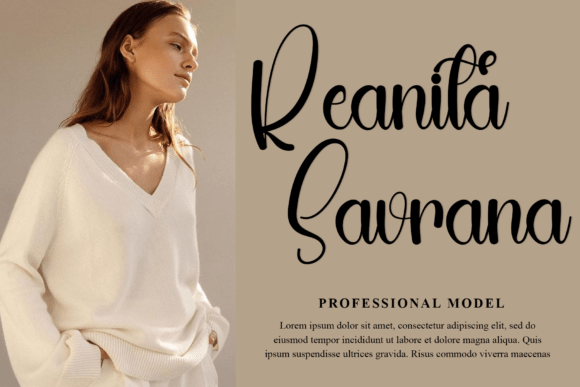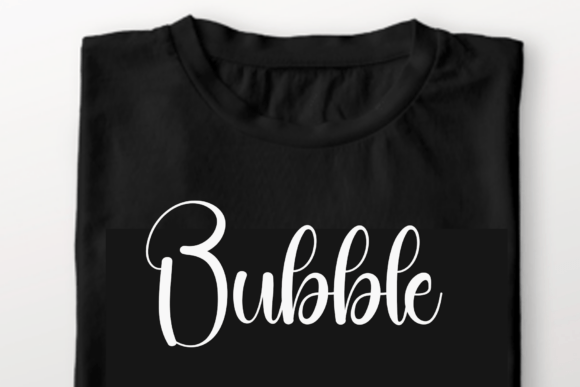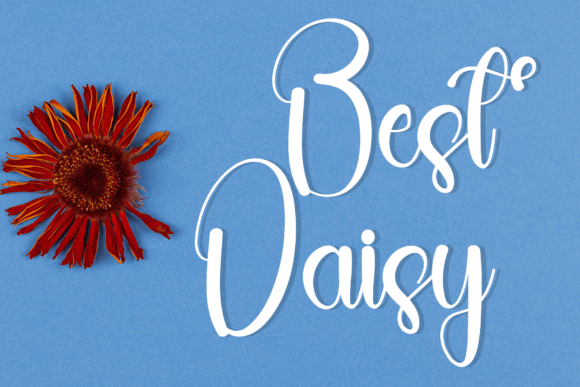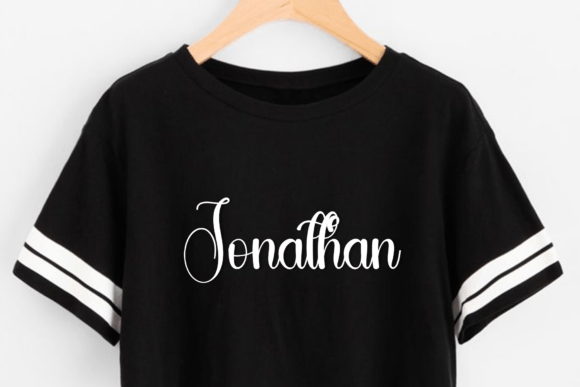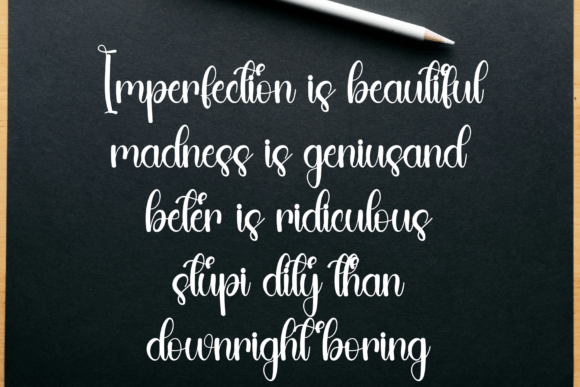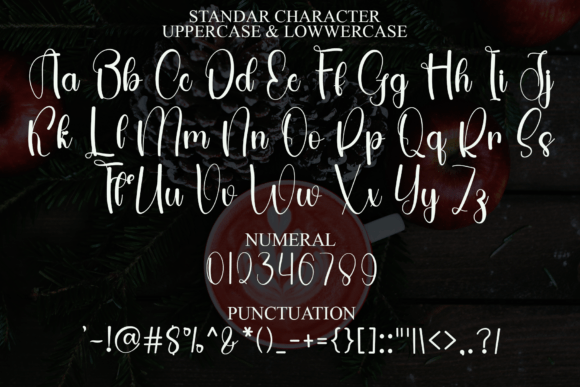
Introducing Daily Calm Font: The Festive Typeface for Holiday Cheer
Are you looking for a font that embodies the spirit of the holiday season? Look no further than Daily Calm Font, a festive and merry typeface that’s perfect for adding a touch of enchantment to your designs. With its decorative elements and whimsical flair, this font is sure to bring a cheerful and nostalgic ambiance to your words.
A Festive Font for Holiday-Themed Projects
Daily Calm Font is specifically designed to capture the magic of the holiday season. Its decorative elements and whimsical flair make it perfect for a variety of holiday-themed projects, including greeting cards, gift tags, and festive posters. Whether you’re a designer, crafter, or DIY enthusiast, this font is sure to add a touch of holiday cheer to your creations.
Key Features of Daily Calm Font
- Festive and Merry: Daily Calm Font is designed to capture the spirit of the holiday season, with a festive and merry tone that’s perfect for holiday-themed projects.
- Decorative Elements: This font features decorative elements that add a touch of enchantment to your designs, making them perfect for greeting cards, gift tags, and other holiday-themed projects.
- Whimsical Flair: Daily Calm Font has a whimsical flair that adds a playful touch to your designs, making them perfect for crafters and DIY enthusiasts.
Daily Calm Font is perfect for designers and crafters who want to add a touch of holiday cheer to their creations. Whether you’re creating greeting cards, gift tags, or festive posters, this font is sure to bring a cheerful and nostalgic ambiance to your words. With its decorative elements and whimsical flair, Daily Calm Font is the perfect choice for anyone looking to add a touch of magic to their designs.
Tips for Using Daily Calm Font
- Pair with Other Fonts: Daily Calm Font pairs perfectly with other fonts, making it easy to create unique and eye-catching designs.
- Use for Headings and Titles: This font is perfect for headings and titles, adding a touch of festive flair to your designs.
- Experiment with Colors: Daily Calm Font looks great in a variety of colors, so don’t be afraid to experiment and find the perfect hue for your design.
Why Choose Daily Calm Font?
There are many fonts to choose from, but Daily Calm Font stands out from the rest. Here are just a few reasons why:
- Unique and Festive: Daily Calm Font is a unique and festive typeface that’s perfect for holiday-themed projects.
- High-Quality Design: Daily Calm Font is designed with high-quality graphics, ensuring that your designs look professional and polished.